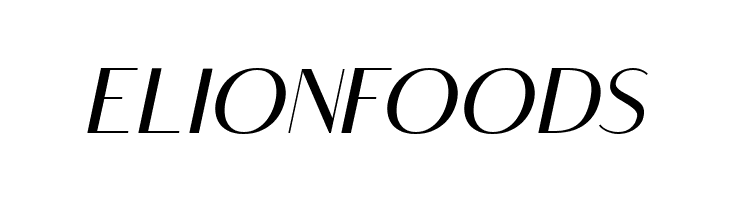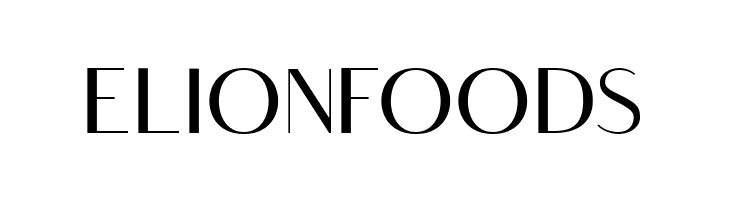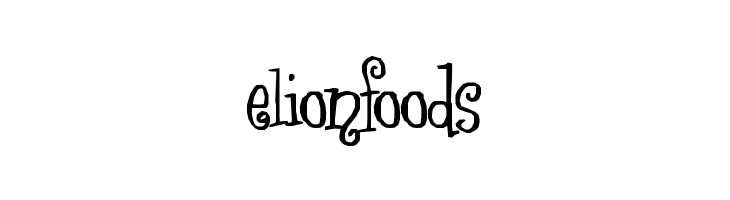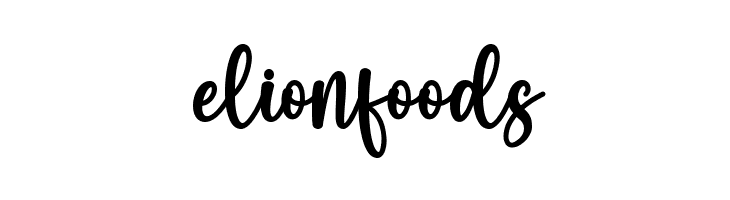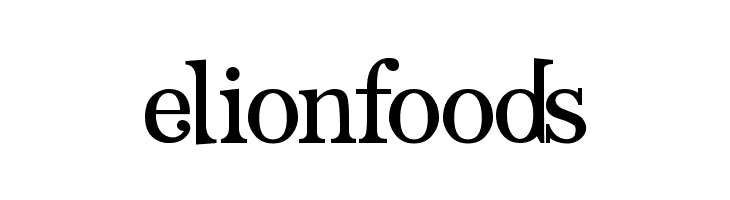
A modern, elegant font with geometric shapes and consistent stroke width.
A sleek, modern italic font with high contrast and elegant style.
An elegant, cursive handwritten font with smooth, flowing strokes.
An elegant serif font with decorative swirls and flourishes.
An ornate serif font with decorative flourishes and a distressed texture.
A whimsical, hand-drawn font with curly, ornate details.
An elegant and flowing script font with graceful curves and loops.
A playful handwritten font with tall, narrow letters and a casual style.
A playful, handwritten script font with dynamic, flowing characters.